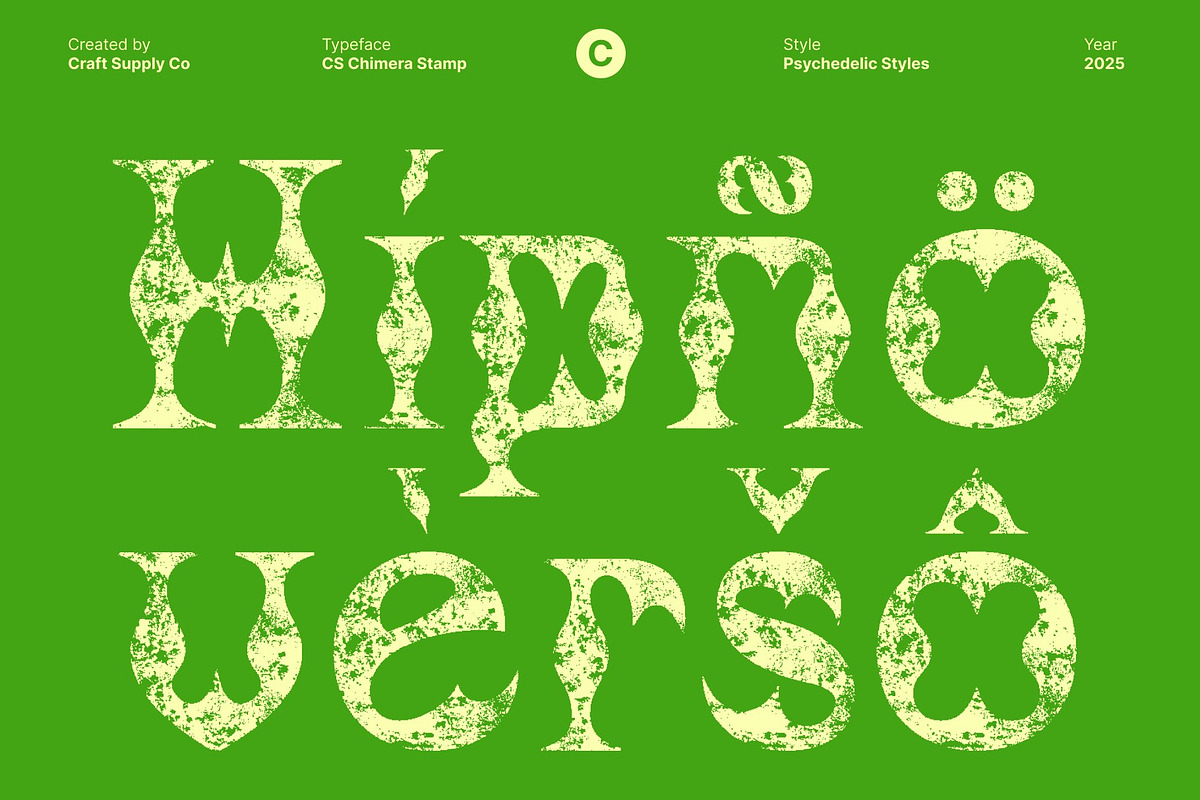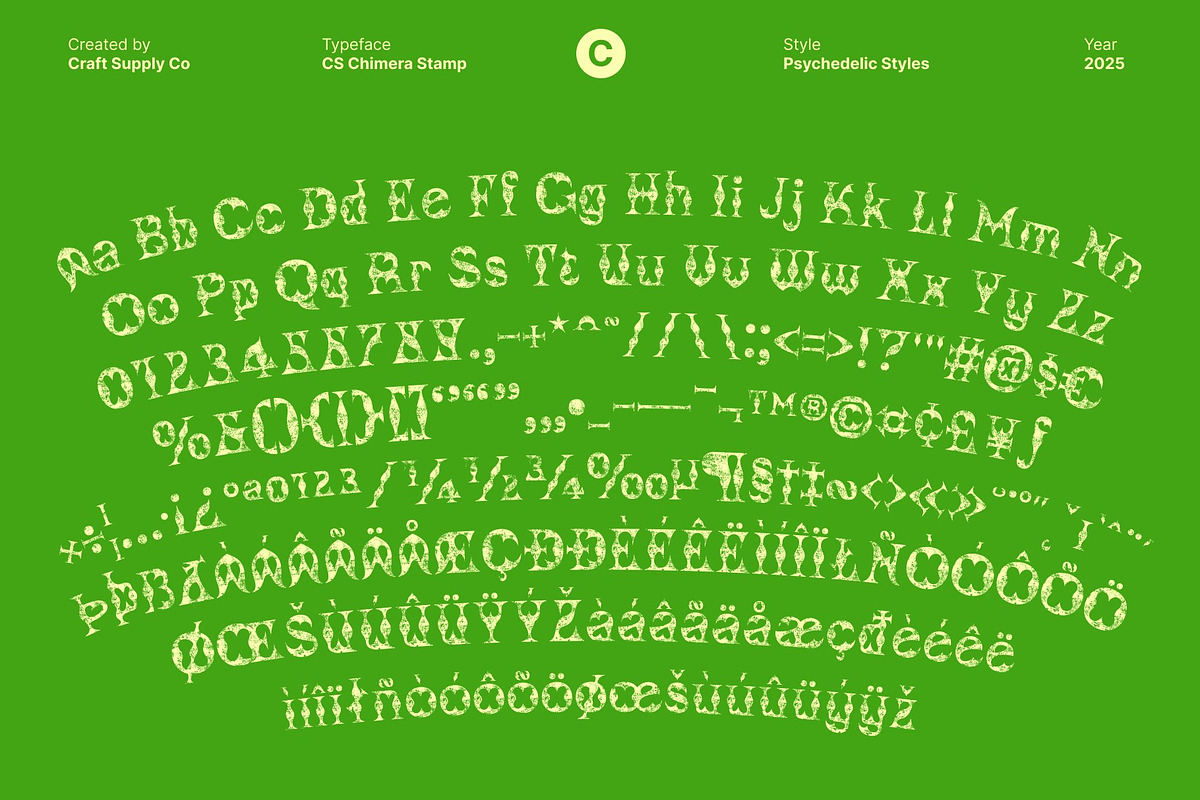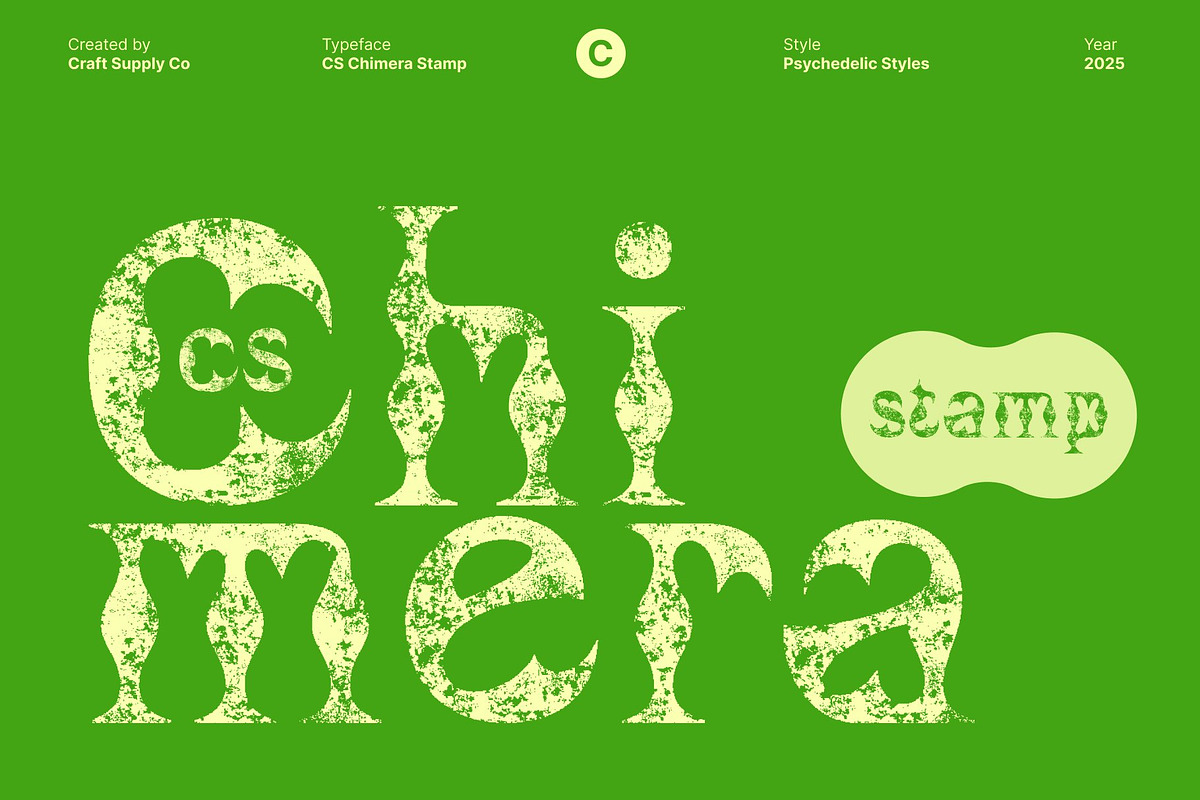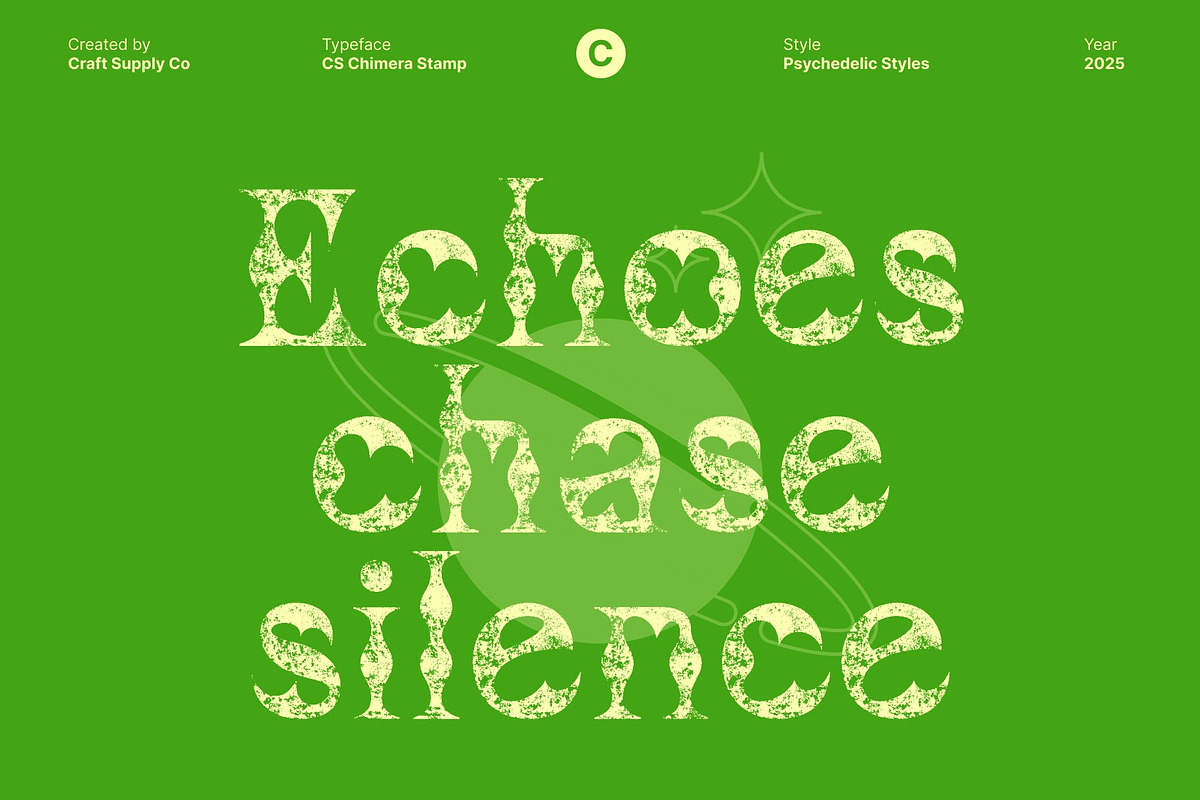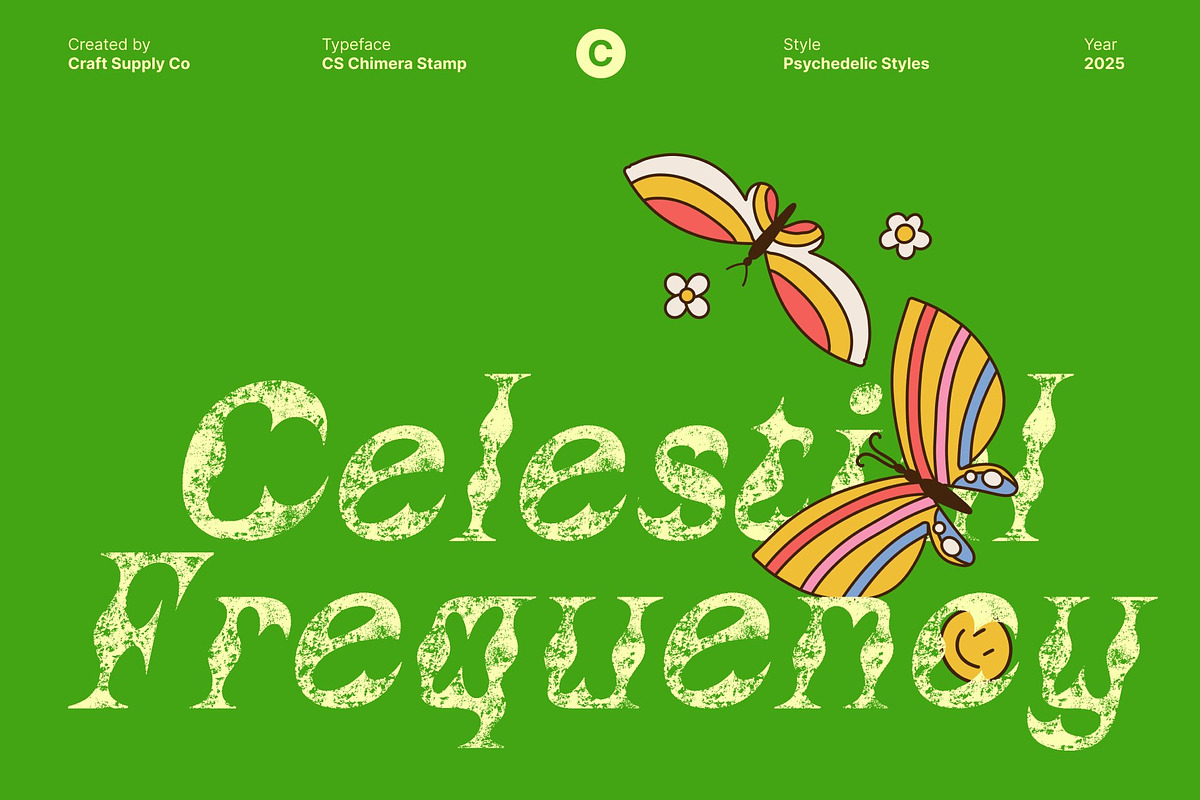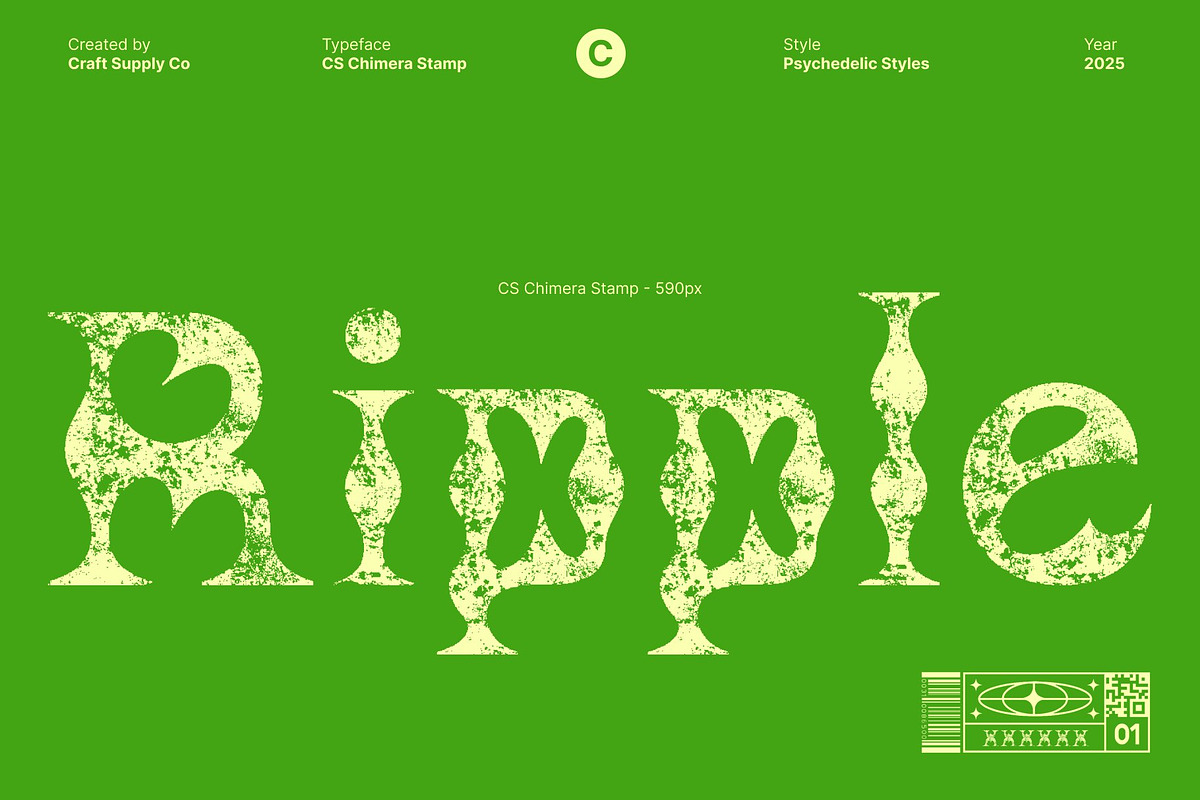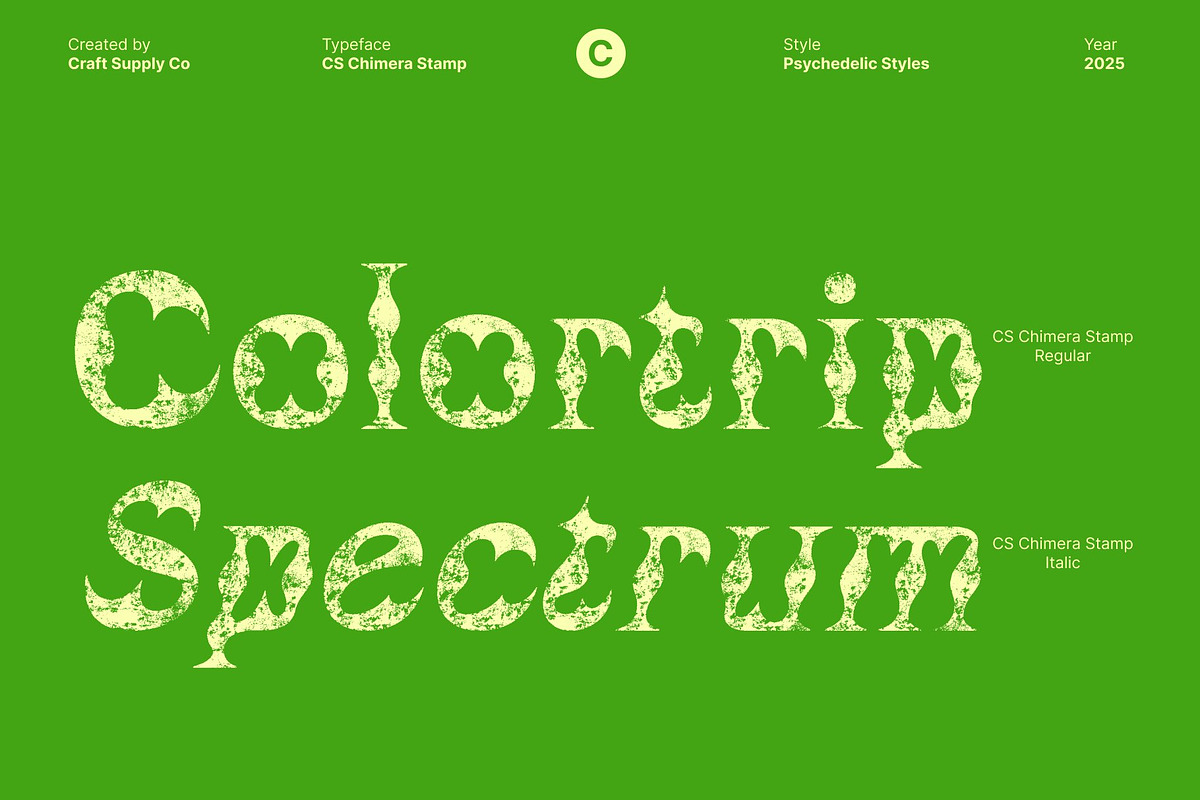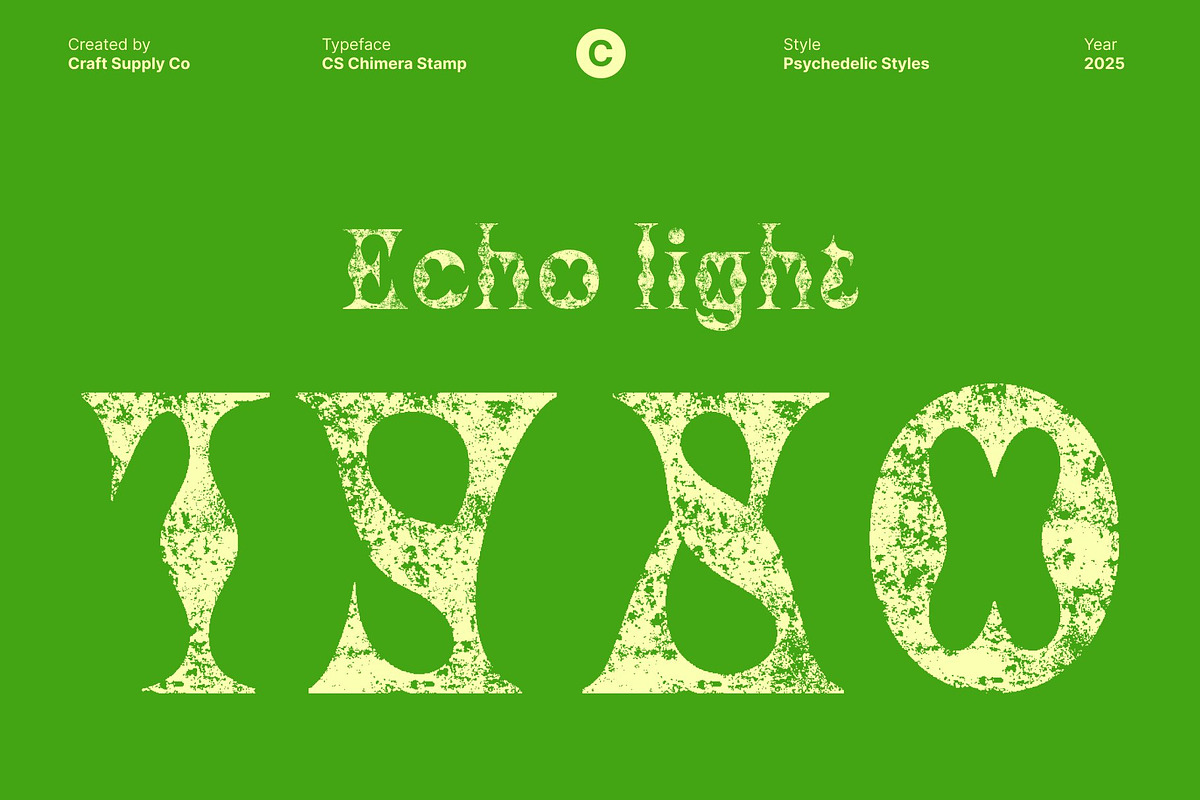
CS Chimera Stamp
CS Chimera Stamp – Funky Psychedelic with Artistic Flair
Bold Display Font with Psychedelic Energy This is a vibrant display font designed to capture attention with its unconventional, wavy shapes and psychedelic lines. Each letter pulses with dynamic energy, making it perfect for designs that embrace creativity, movement, and bold expression.
Stamp Texture for Handcrafted Appeal The unique stamp finish adds depth and character, giving the font a tactile, artistic feel. This handcrafted texture enhances its playful personality and makes each design element feel lively, authentic, and visually engaging.
Unconventional Shapes for Maximum Impact With its wavy, experimental letterforms, this font breaks away from traditional typography. Its bold and irregular structure creates a sense of motion and excitement, ideal for designs that want to feel fun, adventurous, and energetic.
Perfect for Music, Art, and Vibrant Posters From music event promotions and experimental art projects to eye-catching posters, this font delivers a font that radiates creativity and funk. Its psychedelic style and stamped texture make it the perfect choice for projects that demand a bold, artistic, and unforgettable visual presence.